Can anyone tell me what this font is? I need to do a type match on a rare book cover, and I don’t have anything close in my font library.
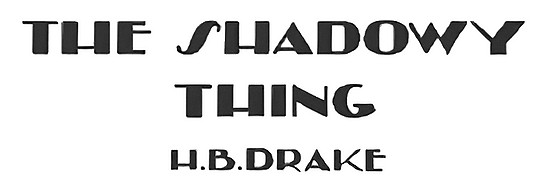
Can anyone tell me what this font is? I need to do a type match on a rare book cover, and I don’t have anything close in my font library.
It’s hand drawn in the Art Deco style of the 1920s. Duplicate letters are not identical (H, E, A, D); the S and G are idiosyncratic. Note the bold stress on the W and Y is on the wrong side. In a contrasting letter, the thick stroke is usually the downstroke of a person writing right-handed, which means when the straight-nib pen is slightly rotated, the left side of the A, W, and M will be the wide stroke and the right side will be the thin upstroke.
Binner, Britannic, and Koloss are fonts from that era, and they have some of the characteristics of this face.